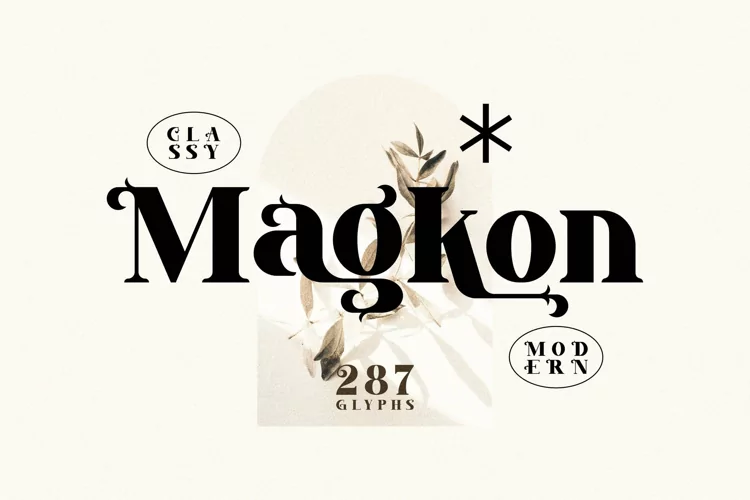
Maknoe Modern Serif Typeface
Introduction Maknoe – Modern Classic Serif Typeface.
Beauty Serif font, clean classic and mindful , it combine in one font, use this font for anything beauty place for your logo, headline, cover book, magazine and many more.
Maknoe is PUA encoded, which means you can access all of the glyphs and swashes with ease!
Full set of Upper & Lowercase Character
Number & Punctuation
Multilingual Language
PUA Encoded
Opentype Features